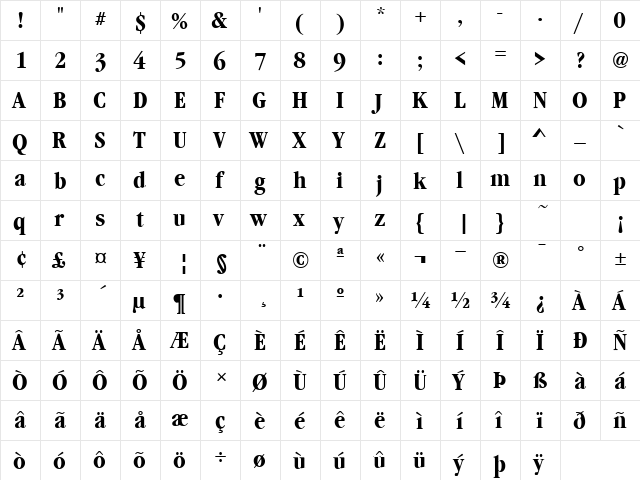
GaramondNovaCond Bold Font Preview
GaramondNovaCond Bold
Design Context for GaramondNovaCond Typeface
GaramondNovaCond offers clean, dependable letterforms without strong stylistic allegiance, making it a practical choice for designers who need flexibility. Its bold stroke weight gives it real presence on the page. Its narrow stance lets it pack a punch even in space-constrained designs.